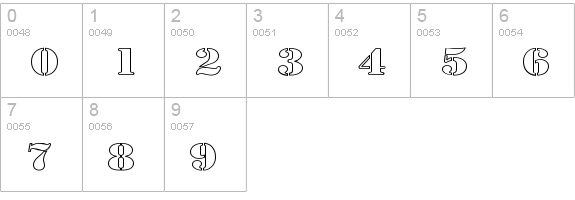
Rudy Hollow Wide is a distinctive, extended-width variant in the Rudy typeface family \xE2\x80\x94 well suited to design and typography projects.
Rudy Hollow Wide font is a stylish and modern typeface that exudes sophistication and elegance. Its sleek lines and wide spacing make it perfect for headlines, titles, and other design projects where impact is key. This font features a unique hollow style that adds a contemporary touch to any design. Best of all, Rudy Hollow Wide font is available for free download at FontsMarket.com. This means you can easily access this beautiful font and use it in your projects without any cost. Whether you're working on a branding project, a poster design, or a website header, Rudy Hollow Wide font will surely make a statement and leave a lasting impression. Download it now and elevate your designs with this stunning typeface.